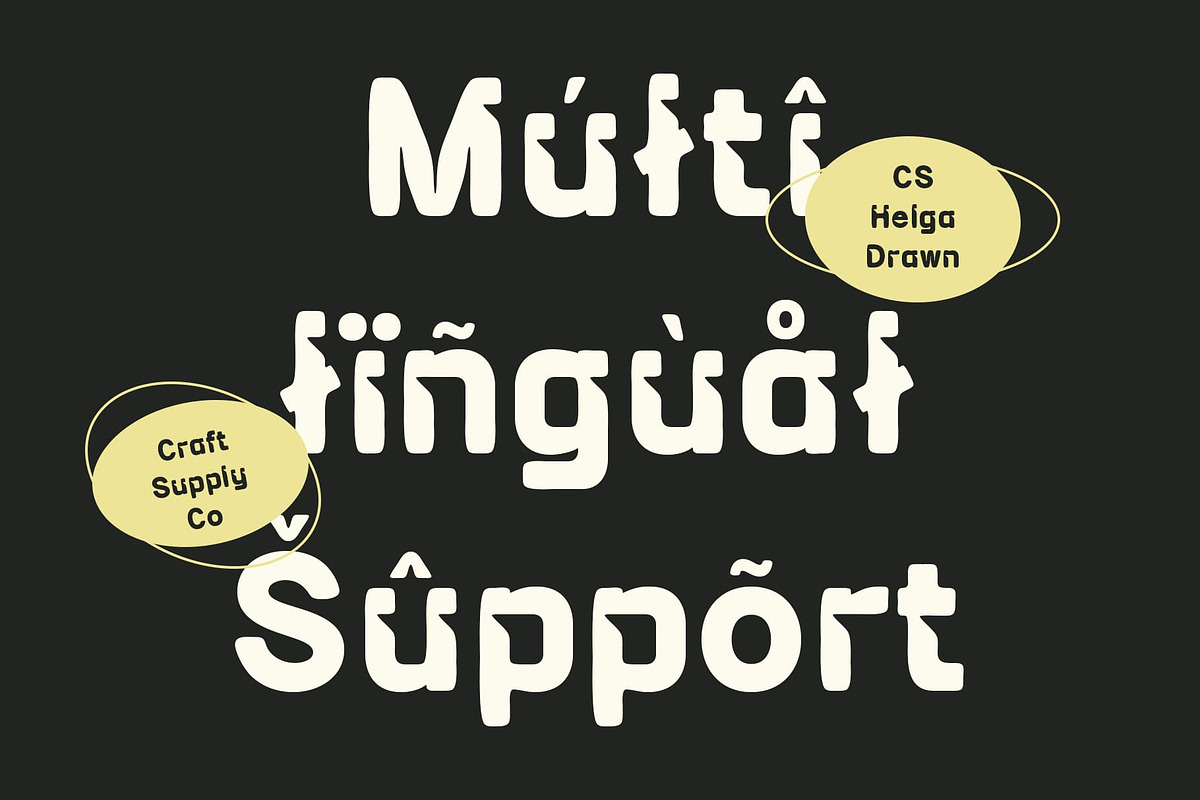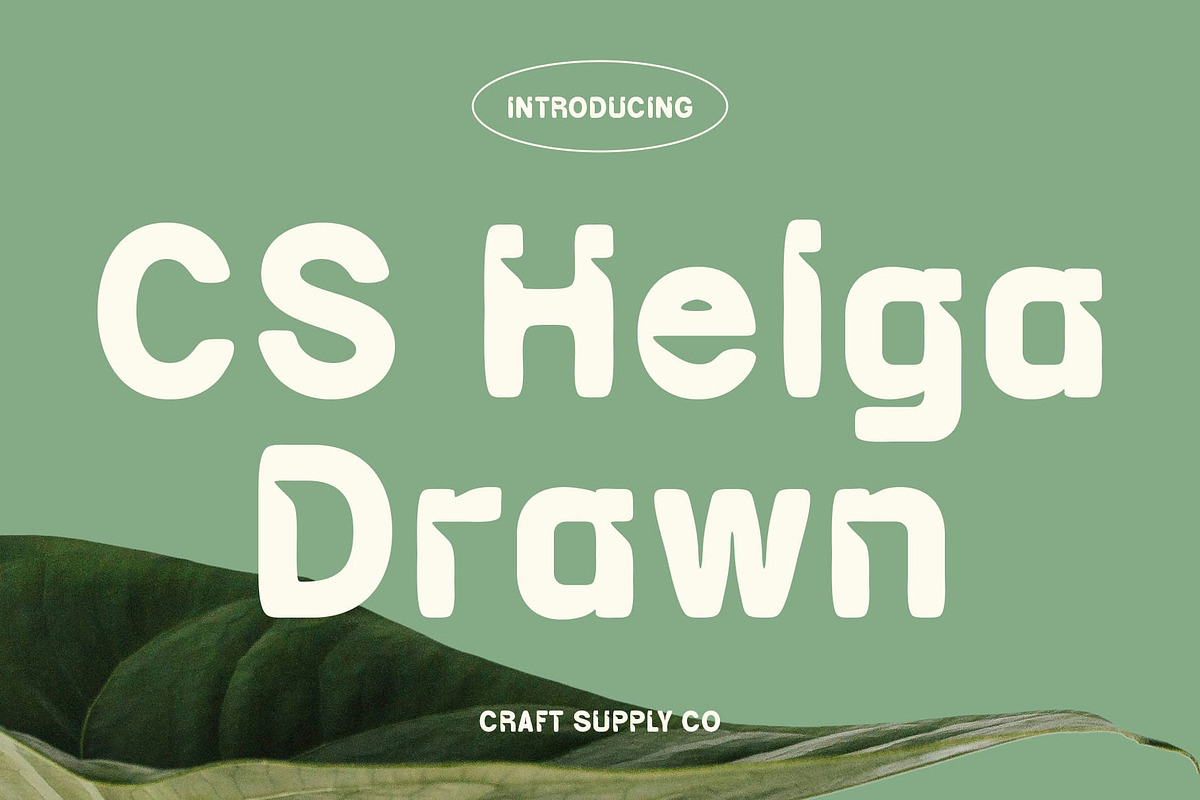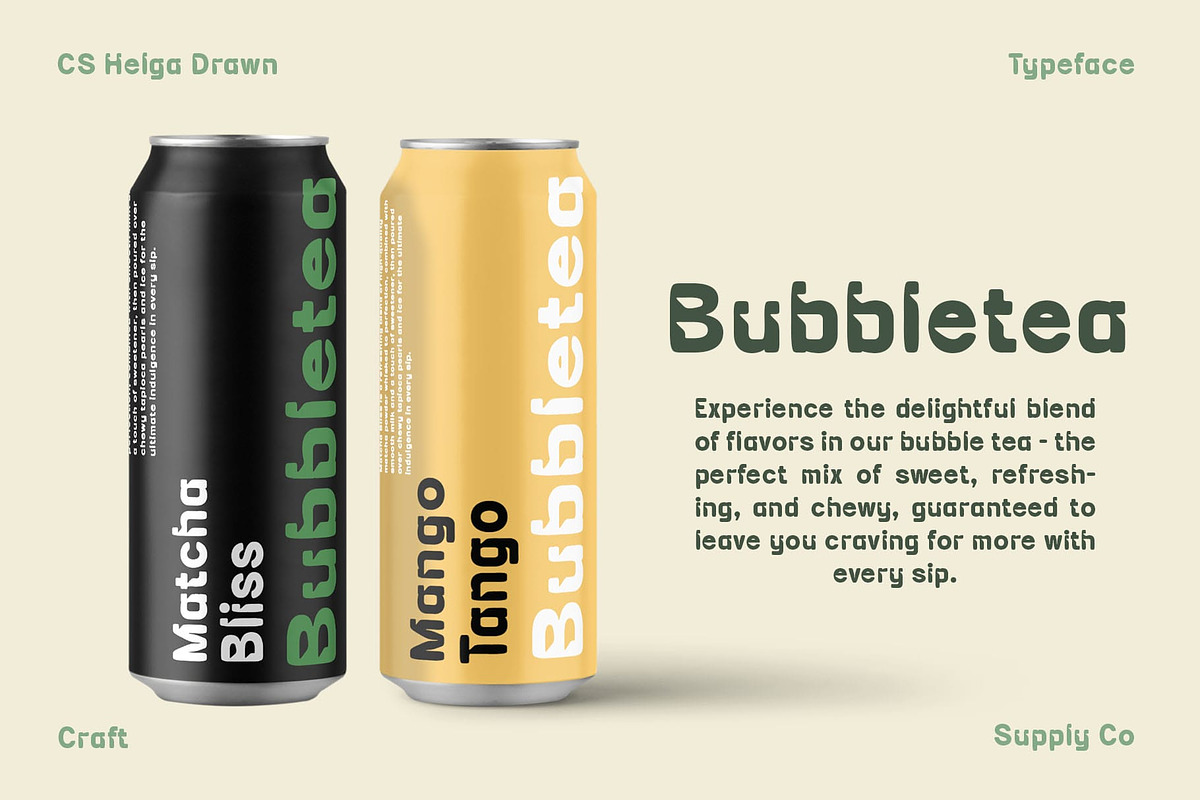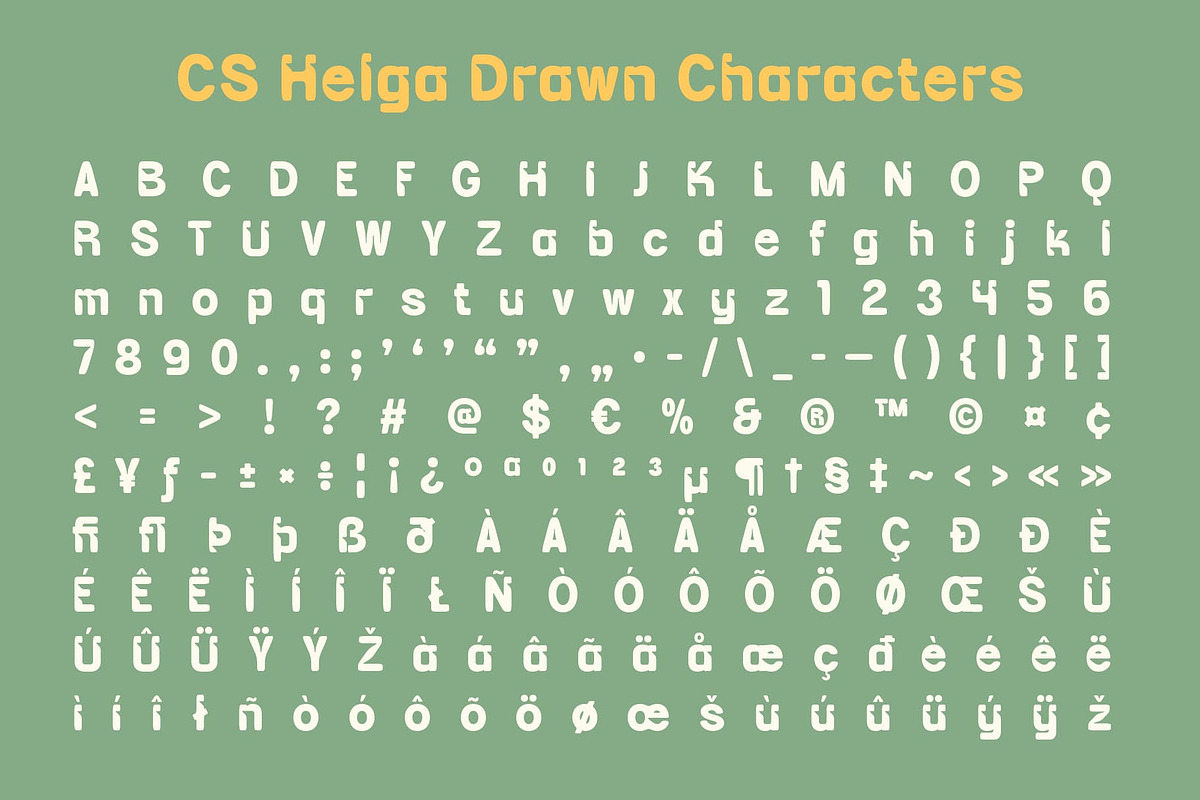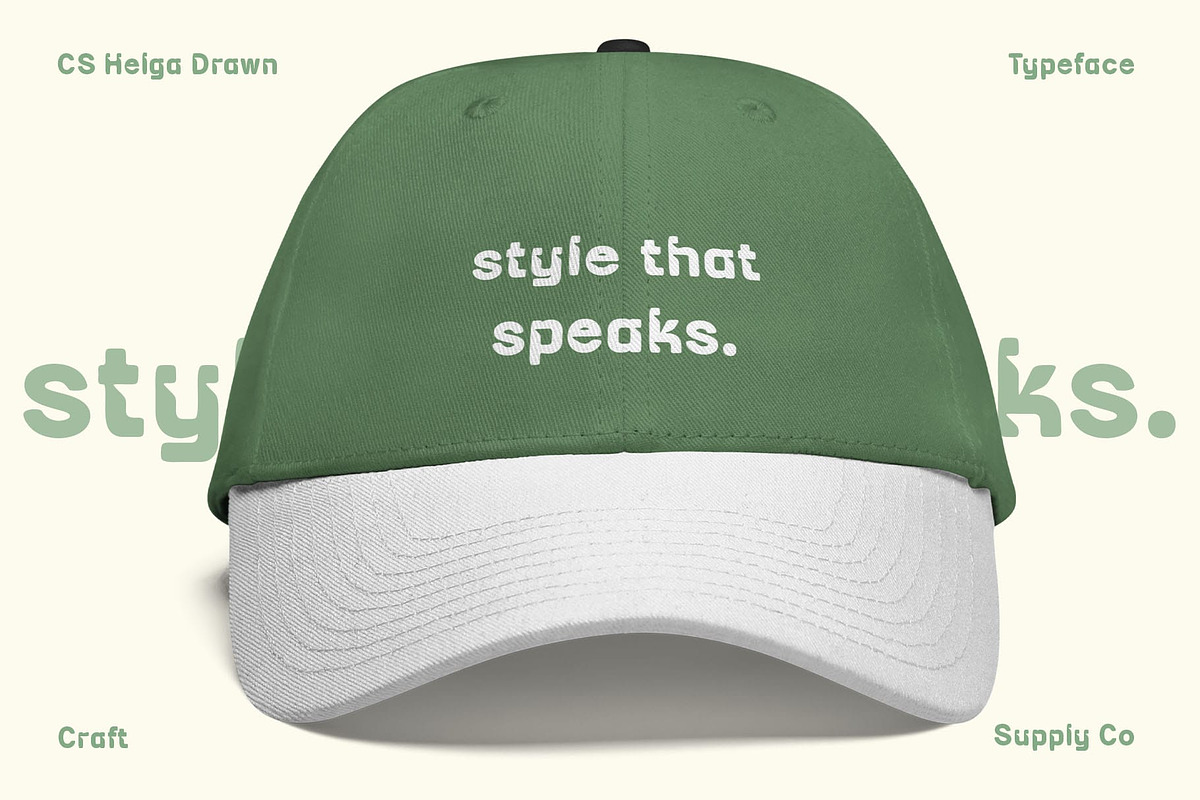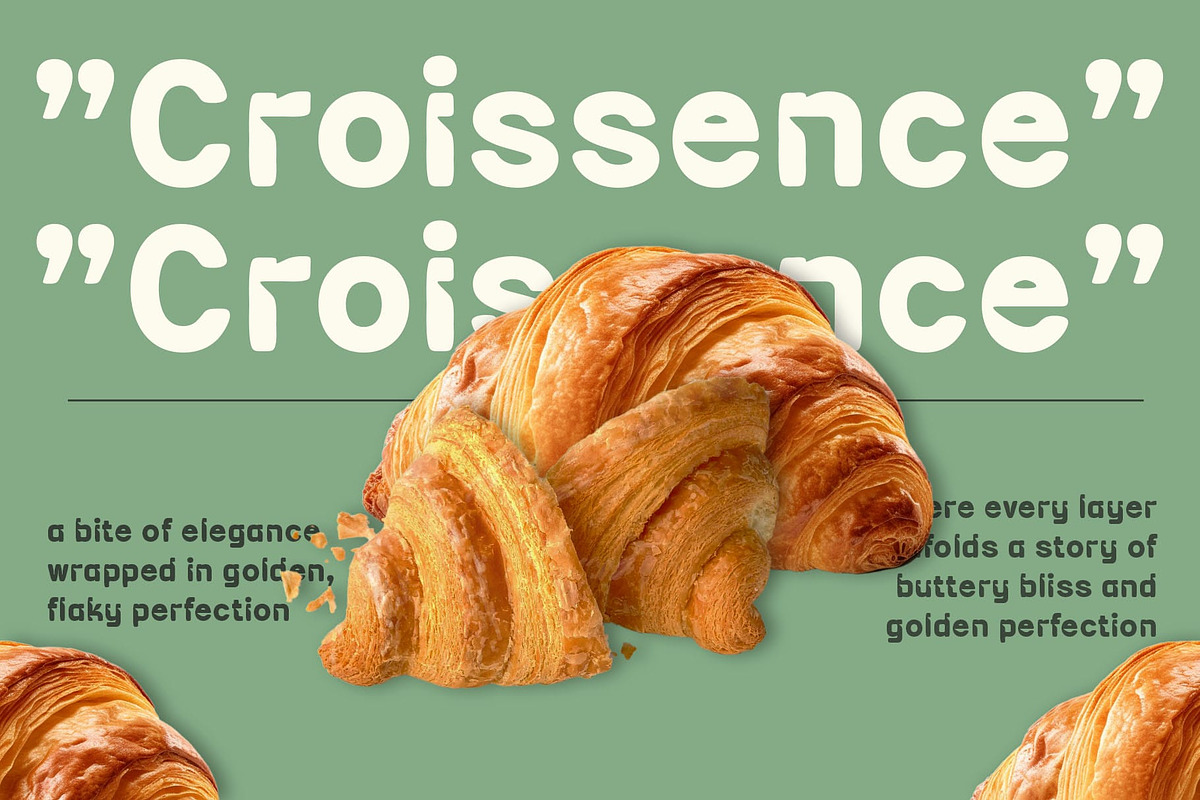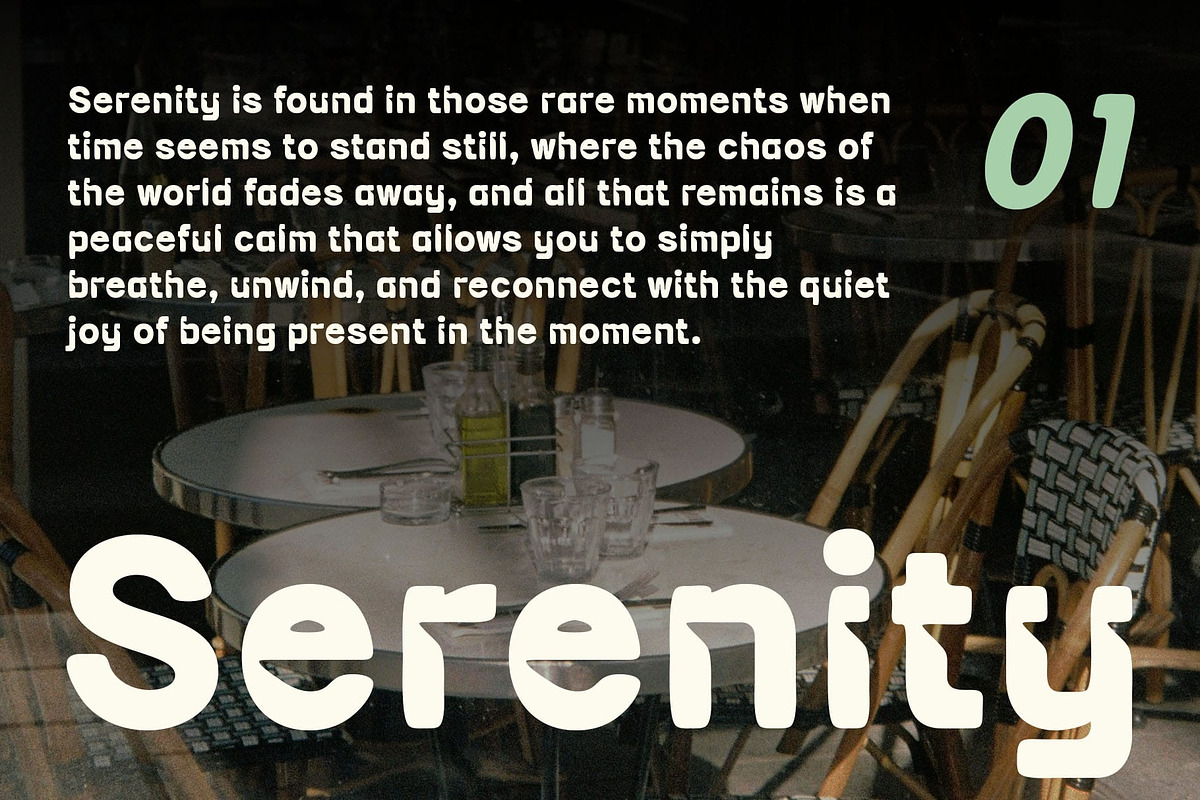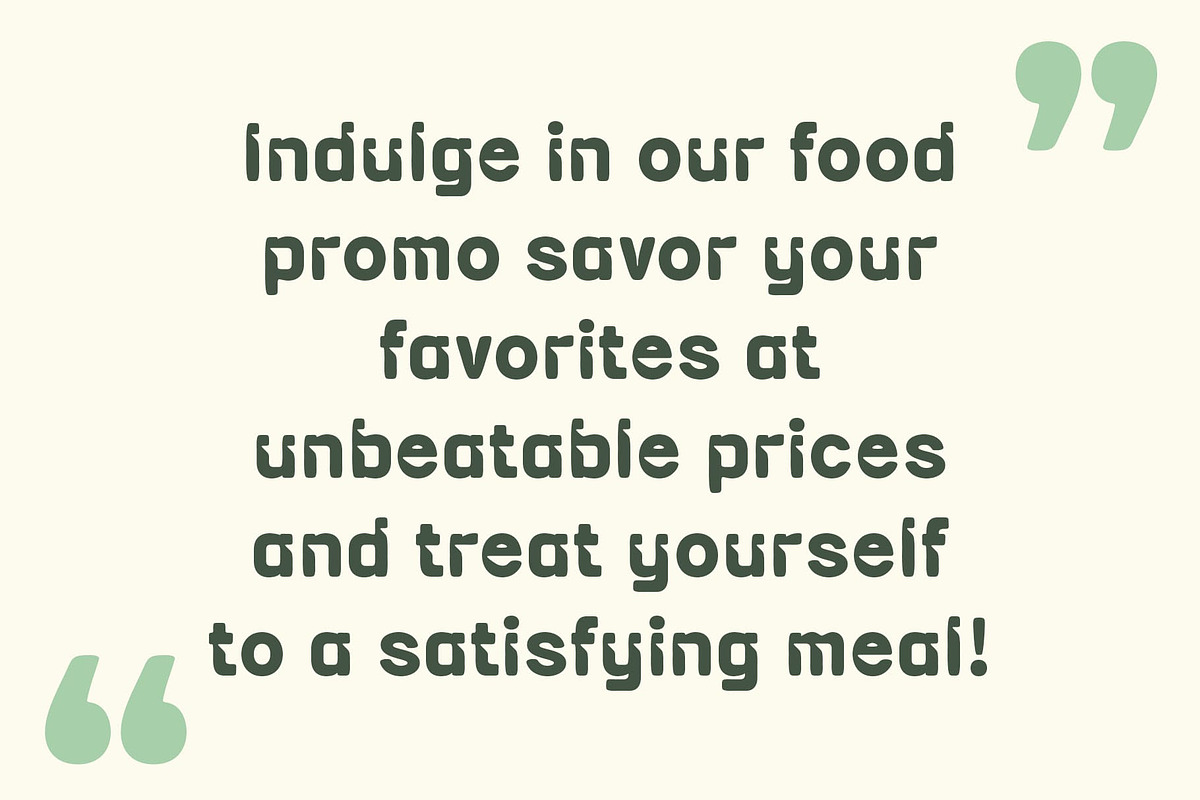
CS Helga Drawn
CS Helga Drawn – Bold Precision with an Artistic Twist
Strong Sans Serif Foundation with Inktrap Innovation This is a modern sans-serif font that masterfully combines bold typography with innovative design elements. Its clean, powerful structure ensures clarity and impact, while the inktrap details introduce a unique “cut-off” effect at the letter corners, enhancing legibility. This design feature not only adds a technical touch but also gives the font a sharp, contemporary edge that is perfect for text that demands attention.
Artistic Hand-Drawn Details While the bold sans-serif form provides a strong, professional presence, the addition of hand-drawn effects brings a layer of organic creativity. The drawn lines create a tactile, sketch-like quality, introducing a lively visual texture that softens the otherwise structured design. This artistic detail injects personality into the font, making it more dynamic and engaging.
Functional and Creative Versatility This drawn font is the perfect choice for projects that need both visual power and artistic flair. Whether you’re designing a striking brand identity, an attention-grabbing poster, or contemporary graphic layouts, this font offers the ideal balance of boldness and creativity. Its unique blend of precision and hand-crafted effects ensures it stands out in both professional and artistic applications.